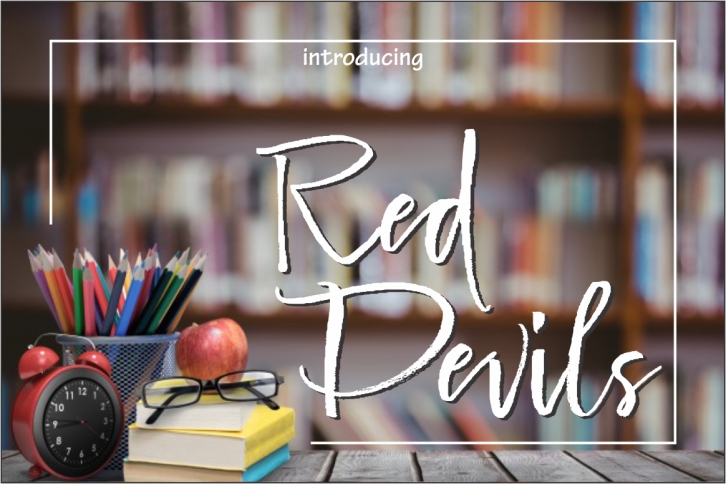
Red Devils Script is a hand-brushed modern calligraphy script font, created with both pen & brush. This font has a dancing baseline with lowercase alternates and was exceptionally made by being painted on paper, scanned, vectorized and carefully crafted into a font.